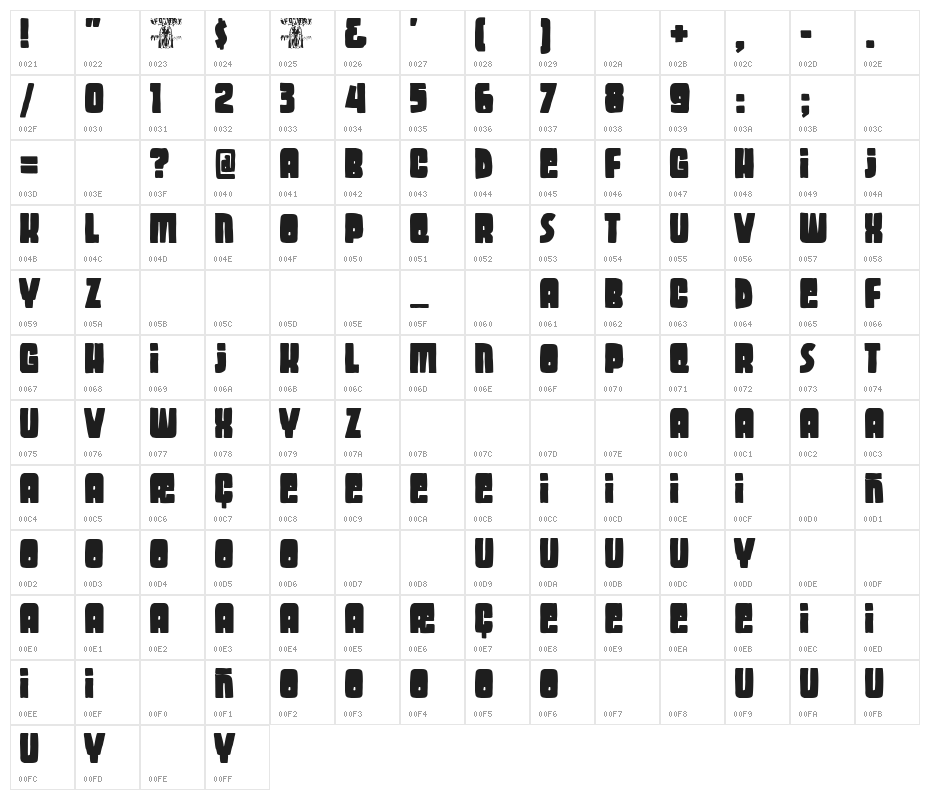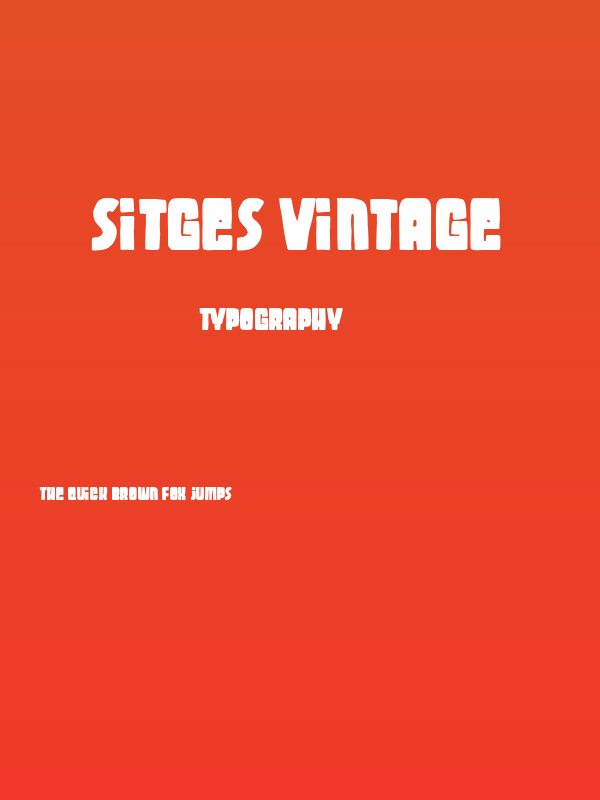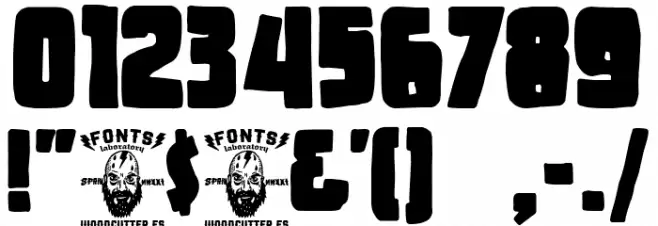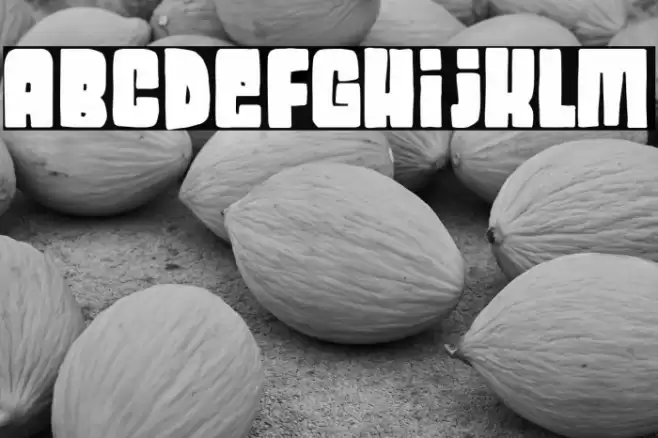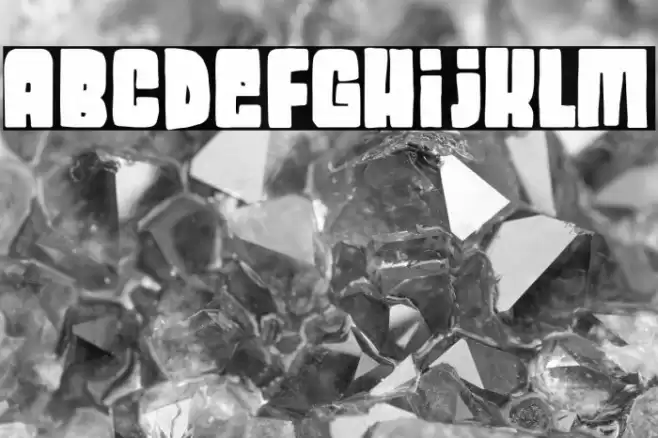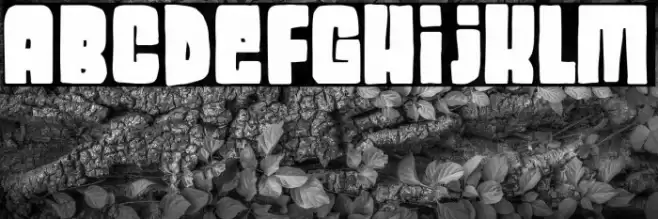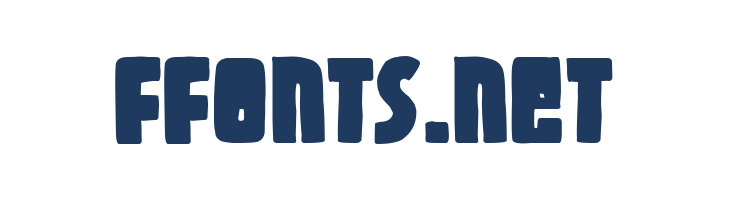
Sitges Vintage Font
This font features a bold and chunky design with a distinctly vintage flair. The characters are heavily weighted, creating a strong visual impact. The edges are slightly irregular, giving it a hand-crafted, retro feel. The uppercase and lowercase letters maintain a consistent style, with a playful yet robust appearance. Numbers and special characters are equally bold, ensuring uniformity across all text. This font is ideal for projects that require a nostalgic or retro aesthetic, such as vintage posters, retro-themed branding, or playful graphic designs.
| Proposed Projects | Ideal for vintage posters, retro branding, playful graphic designs, and eye-catching headlines. |